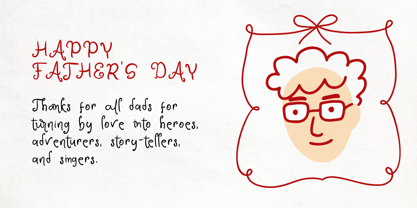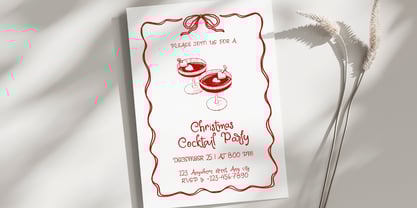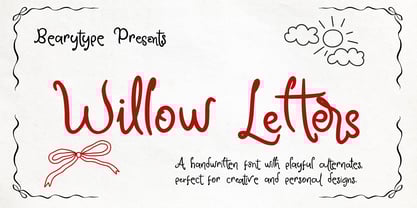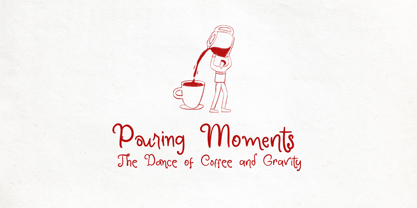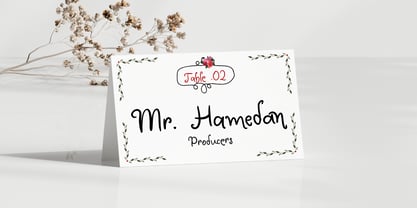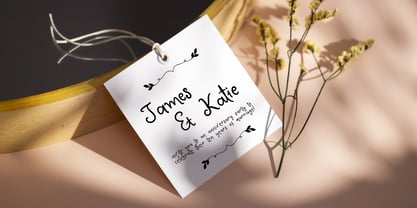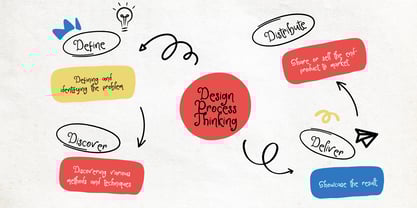
Willow Letters
by Beary
The Willow Letters Font Family was designed by Dian Haniffan Hadi and published by Beary. Willow Letters contains 1 styles.
Say hello to Willow Letters! :)
A playful and natural handwritten font that’s full of personality and charm, with loads of alternate characters and quirky details to keep things looking fresh and organic :)
Perfect for Wedding Invitations, Personalized Stationery, and any creative project where you need a touch of hand-drawn warmth and casual elegance.
Designers: Dian Haniffan Hadi
Publisher: Beary
Foundry: Beary